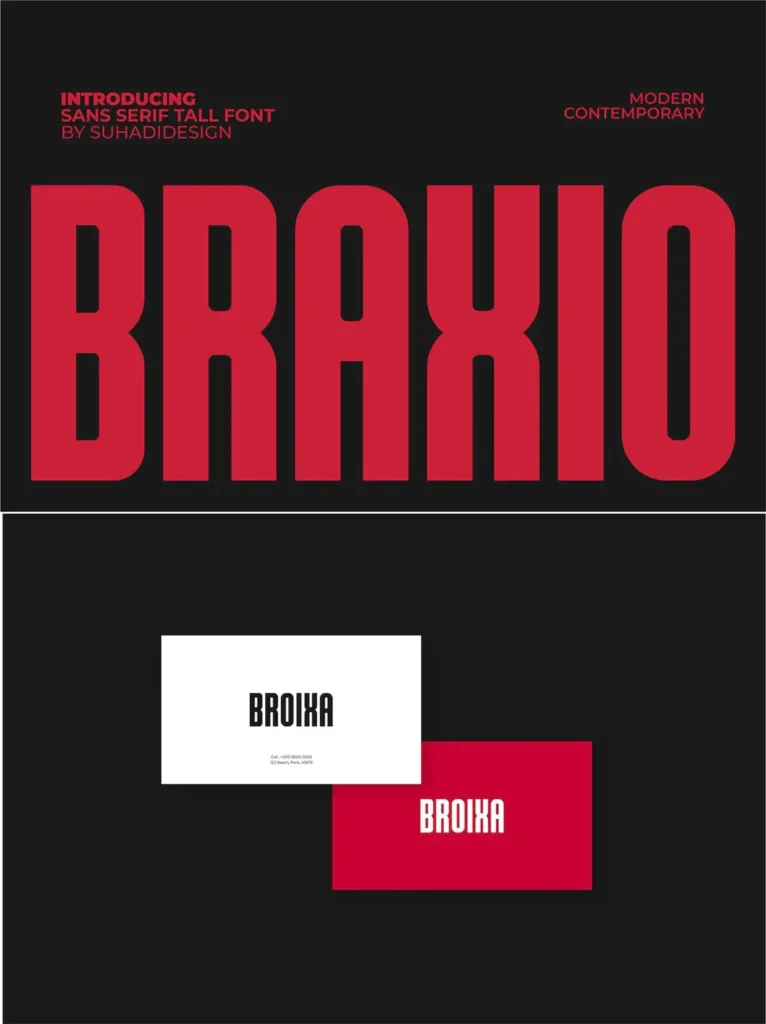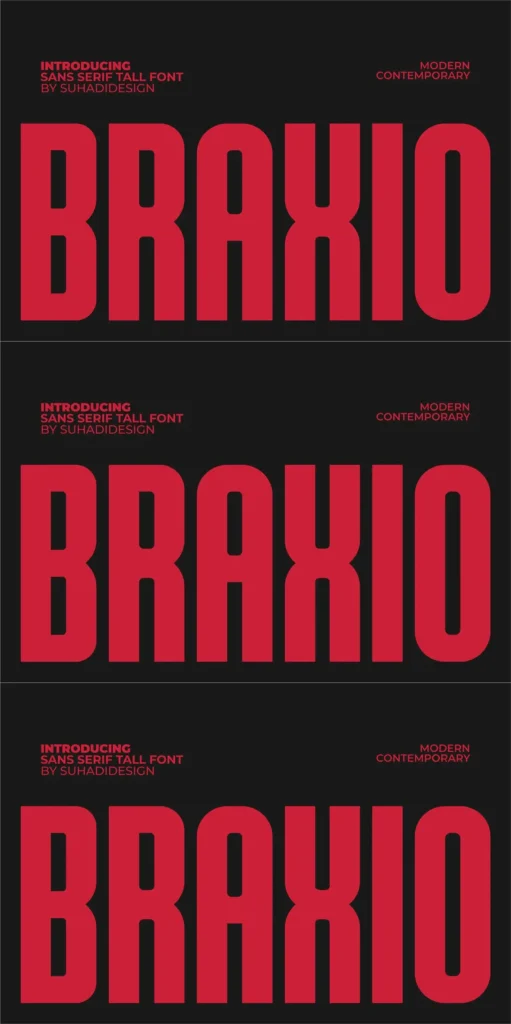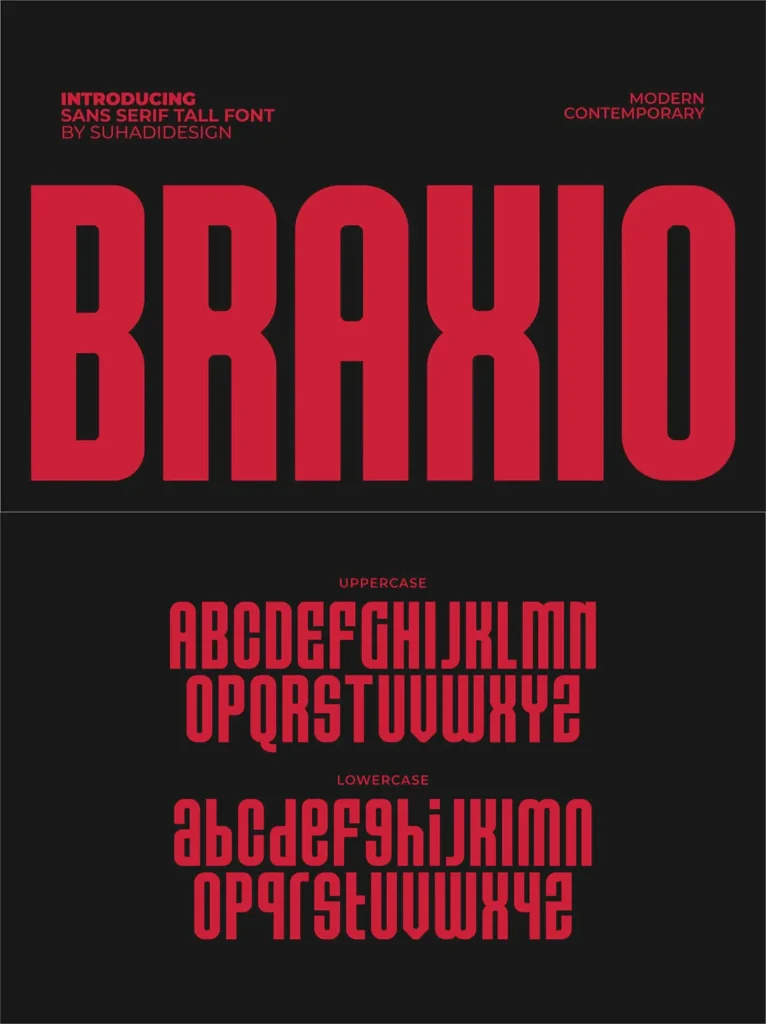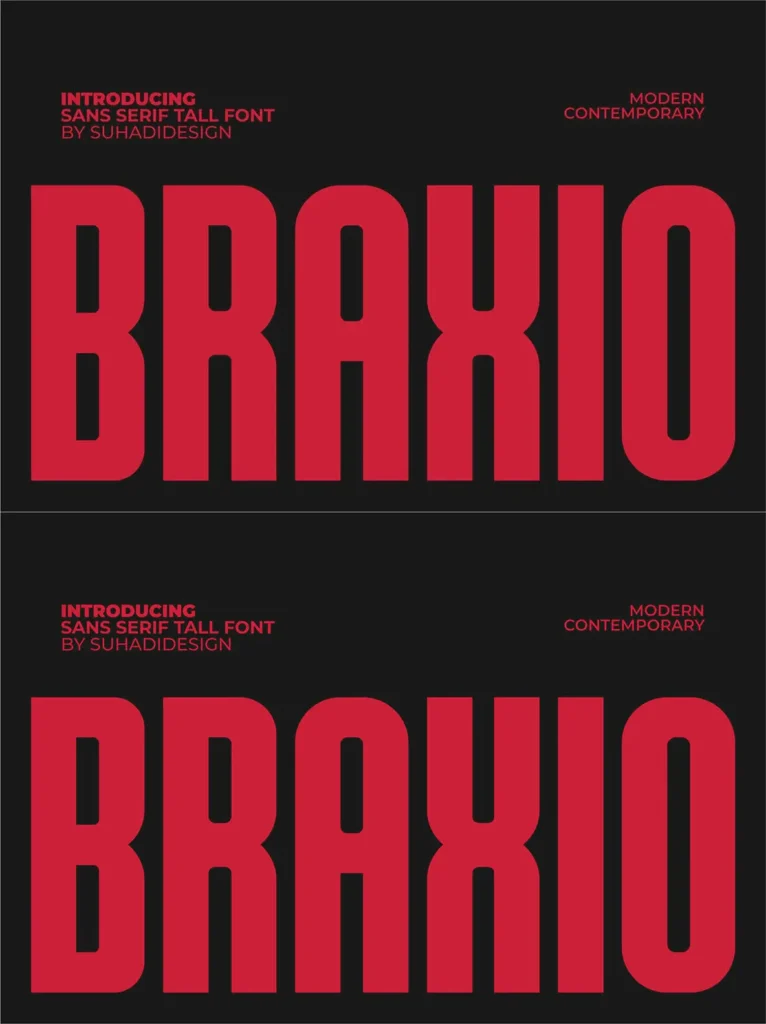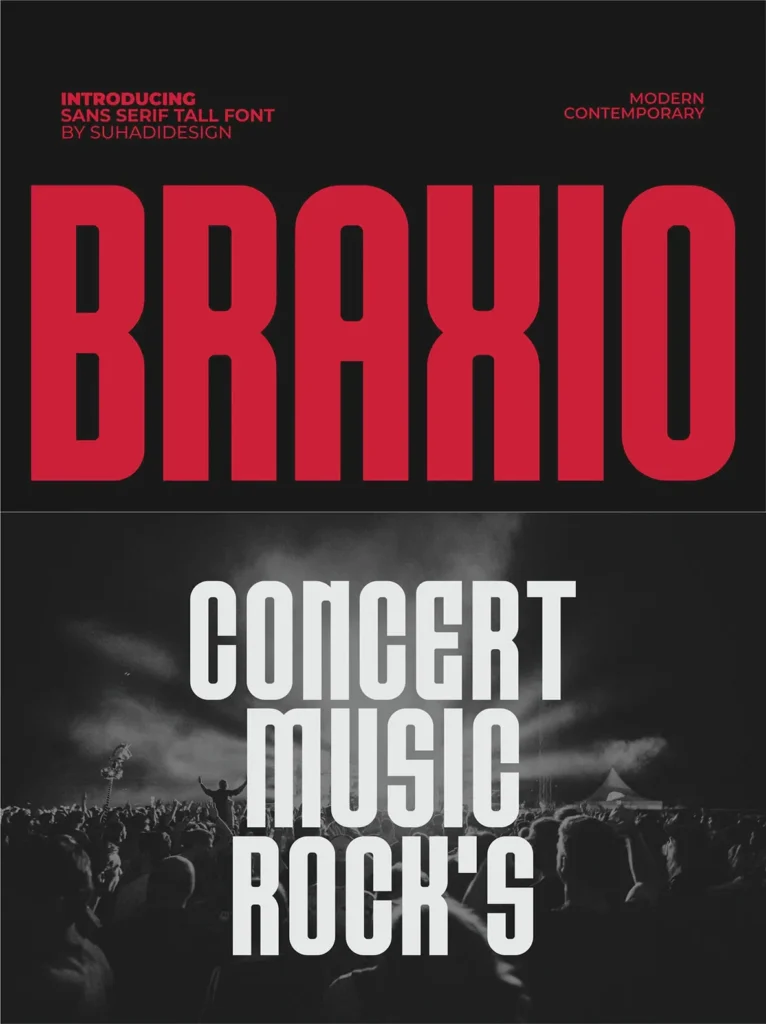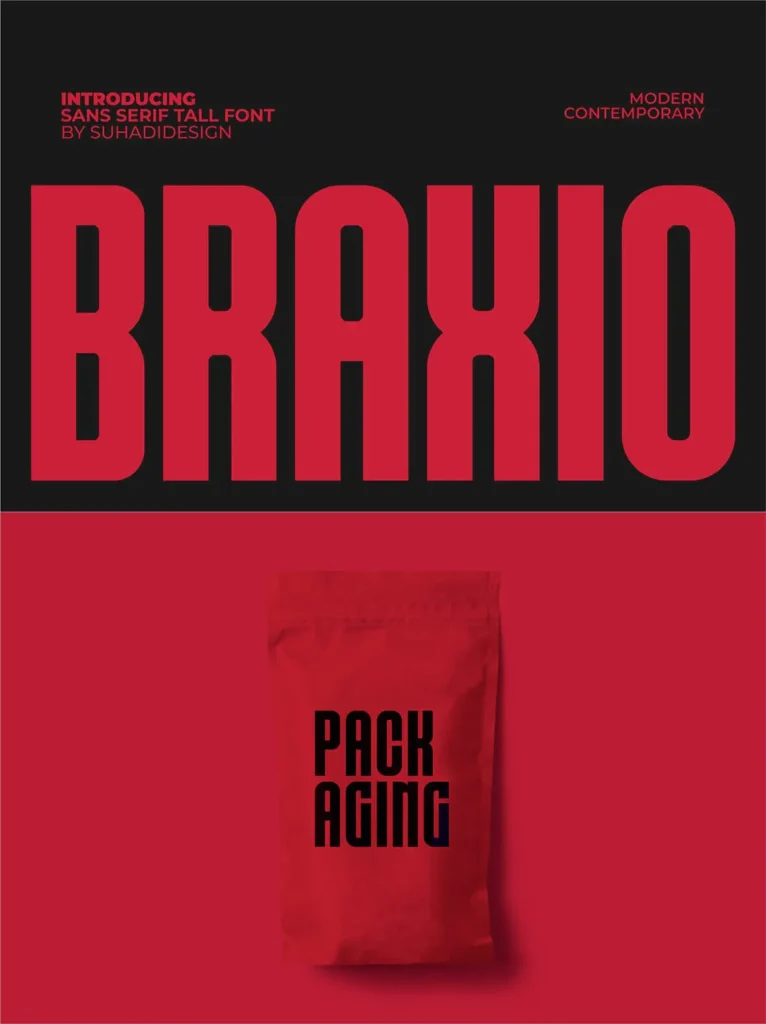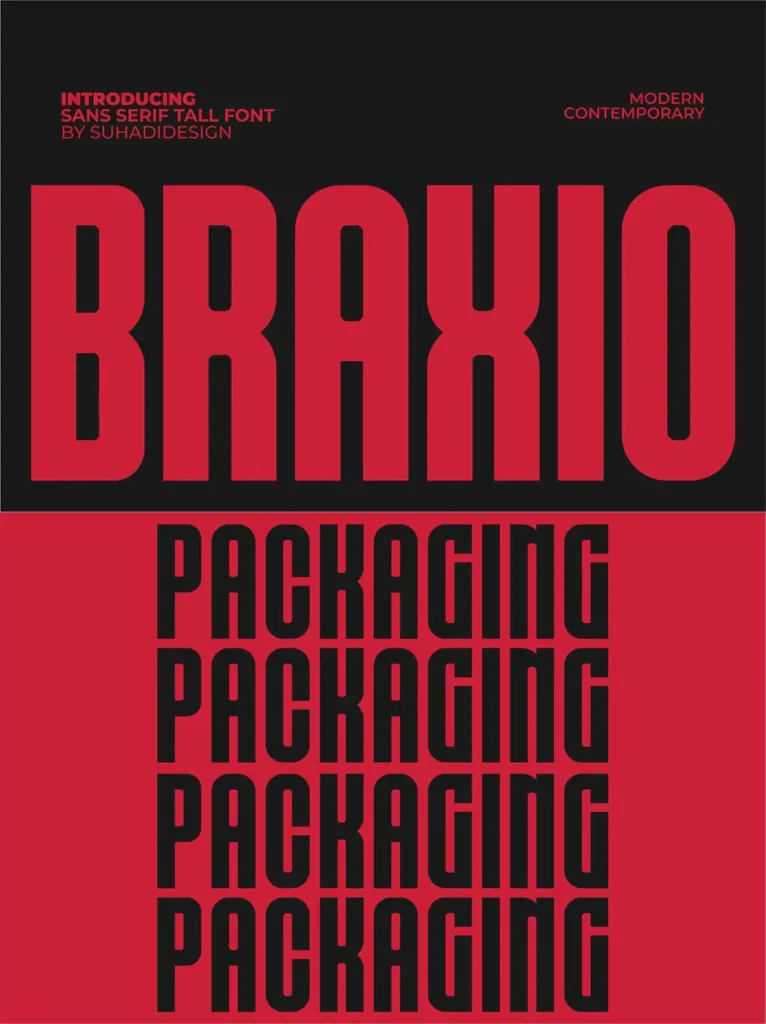
Braxio Font
Braxio — Condensed Bold Market Presence
Braxio – Condensed Bold Tall Font is a captivating, tall, bold sans serif font created in response to clear market demand. Braxio brings a stylish and highly stylized sans serif look with an elegant, classy, modern, contemporary feel that remains easy to use across design work.
Braxio is a great choice for magazines, book covers, shopping bags, packaging, logos, labels, fashion, posters, banners, bags, brands, fashion, brand names, branding, quotes, and other projects. Its distinctive font style makes the design process enjoyable and supports cool, polished results. Stay tuned for the latest information about font creation.